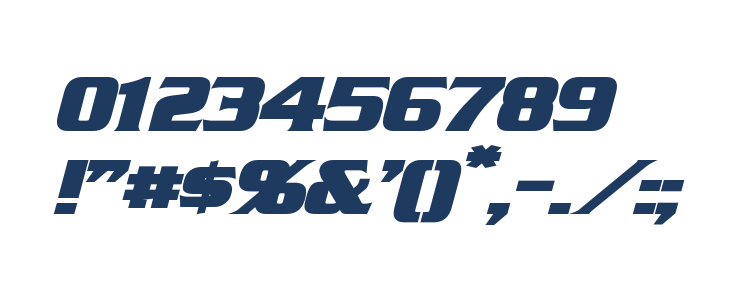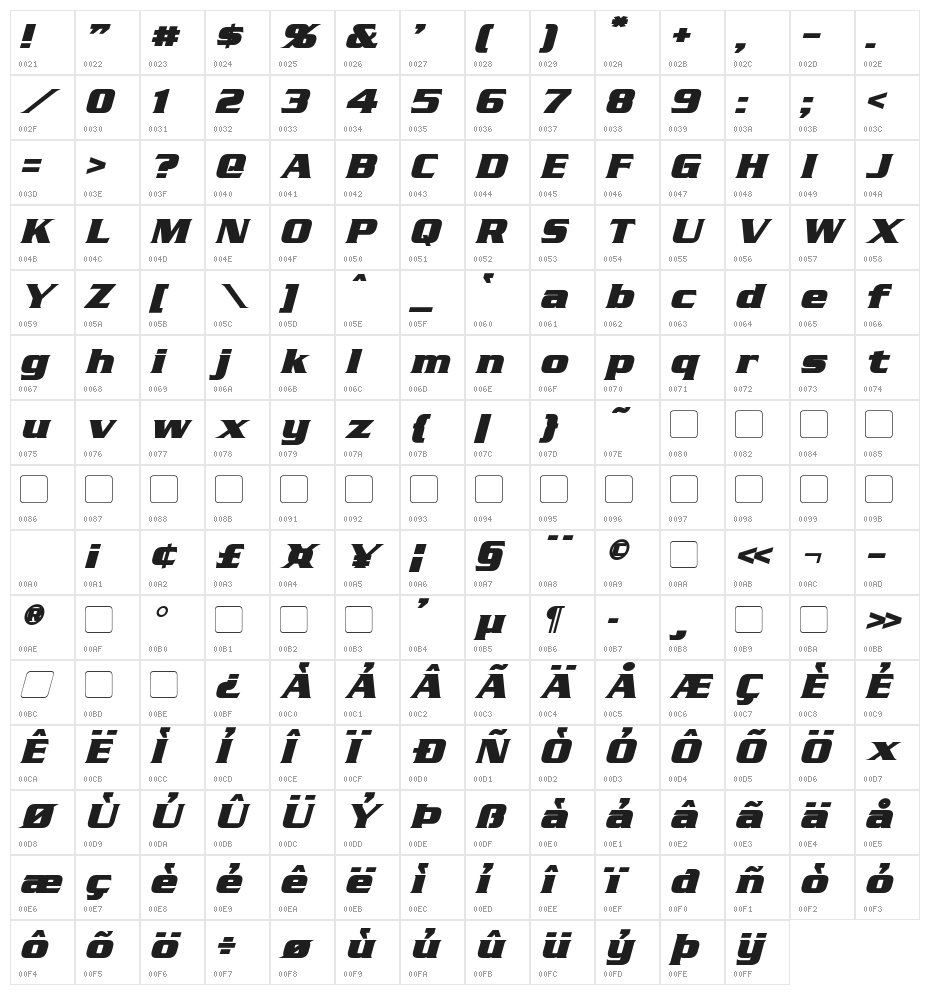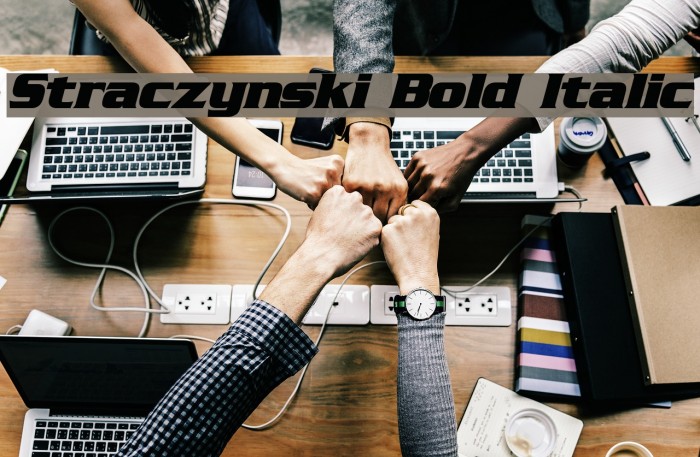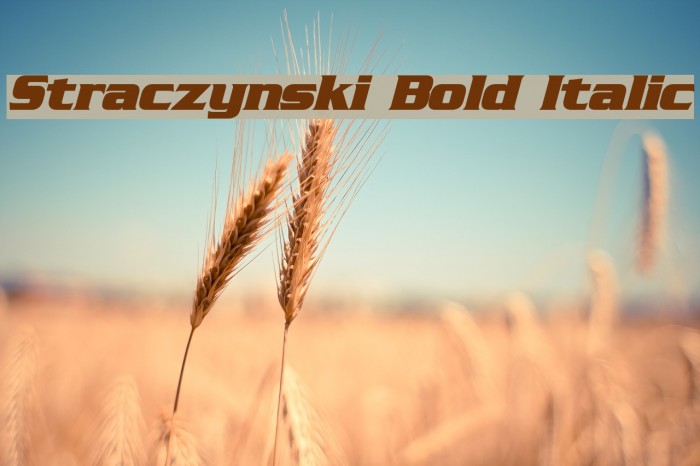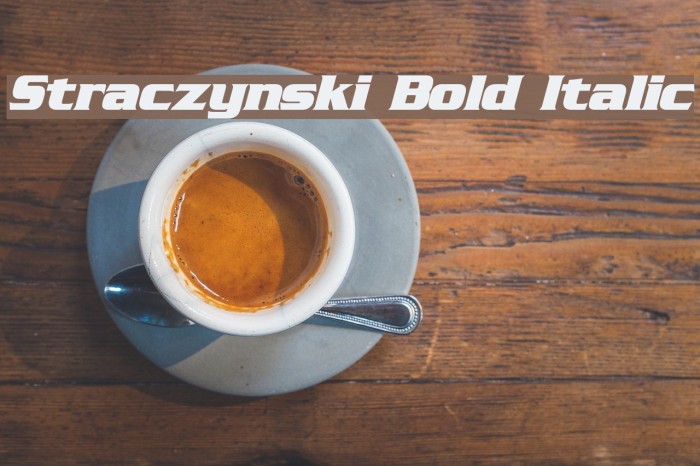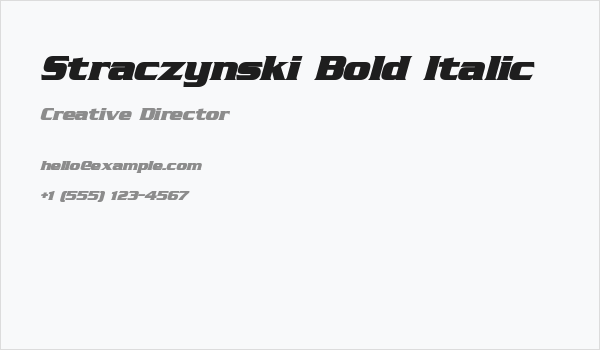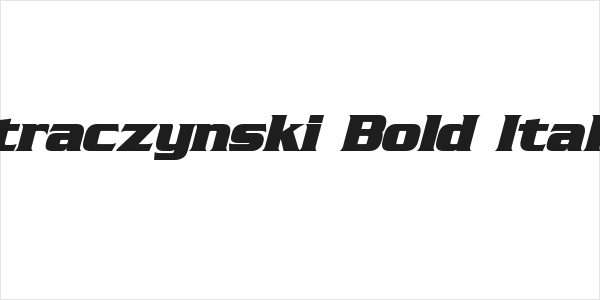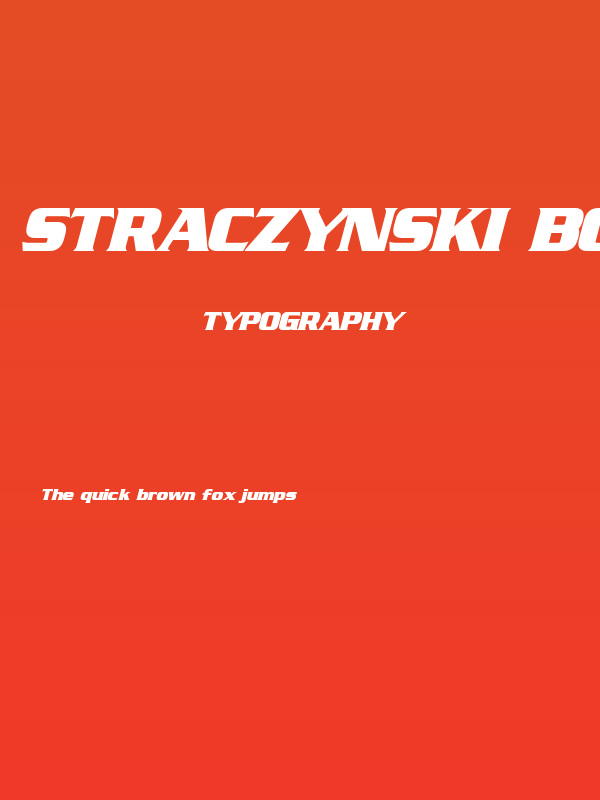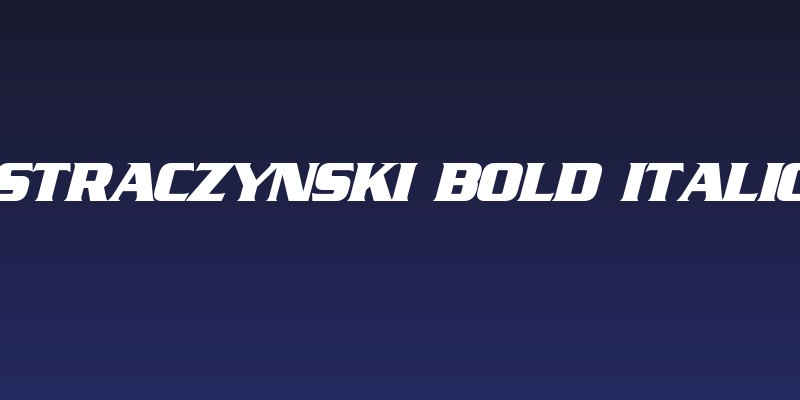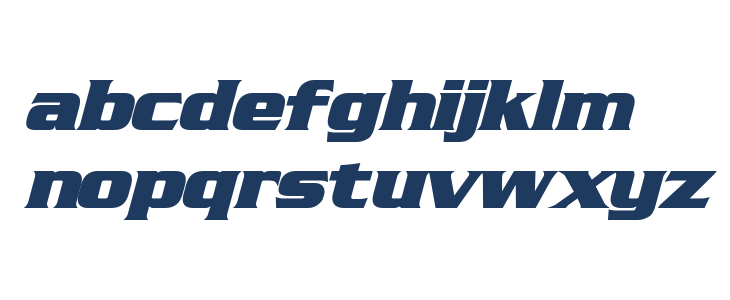
Straczynski Bold Italic Font
Straczynski Bold Italic Description
This font exhibits a bold and italicized style with a strong, dynamic presence. The characters are slanted, giving a sense of motion and energy. The strokes are thick and consistent, providing a robust and impactful appearance. The uppercase and lowercase letters maintain a uniform style, with sharp angles and clean lines. The numbers and special characters follow the same bold and italicized design, ensuring consistency across all glyphs. This font is ideal for projects that require a bold statement and a modern, energetic feel.
| Proposed Projects | Ideal for sports branding, dynamic posters, modern advertising, and any project requiring a bold statement. |